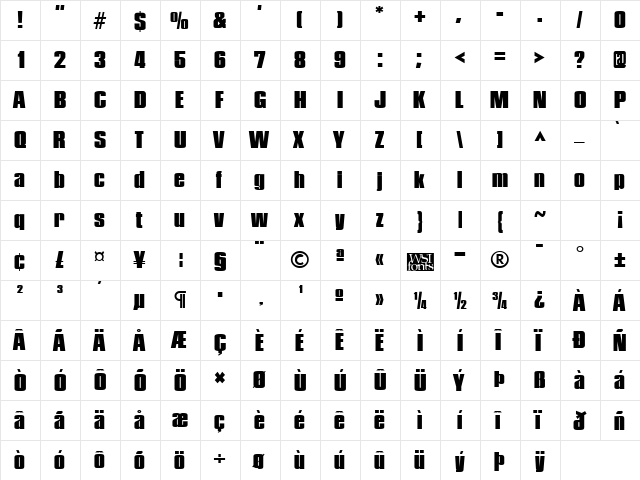
PledgeBlack Regular Font Preview
PledgeBlack Regular
PledgeBlack Regular Font Details
Design Context for PledgeBlack Typeface
PledgeBlack offers clean, dependable letterforms without strong stylistic allegiance, making it a practical choice for designers who need flexibility.